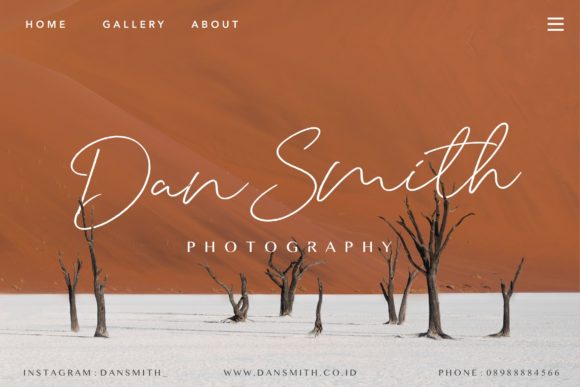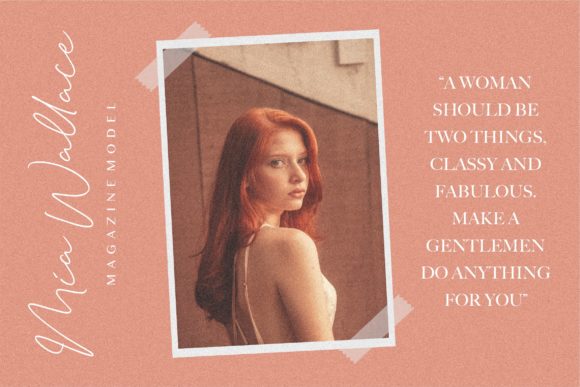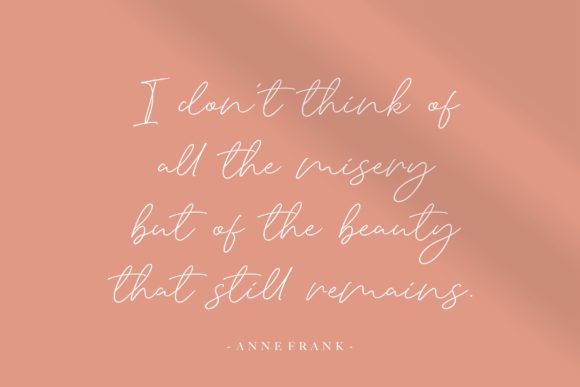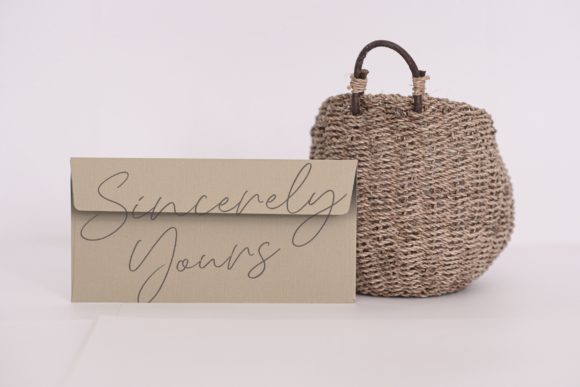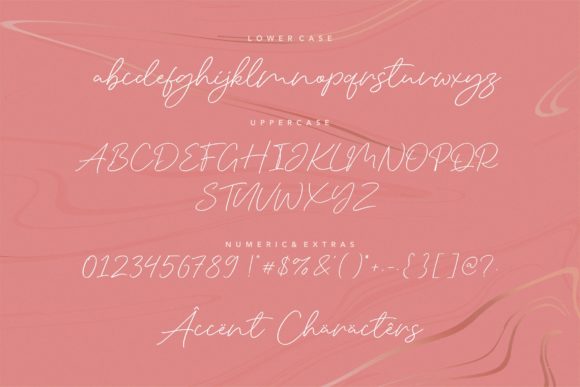
Silent Caroline Font
About Silent Caroline Font
Silent Caroline is a thin and elegant handwritten font. Use it to make your ideas even more realistic and create spectacular designs!